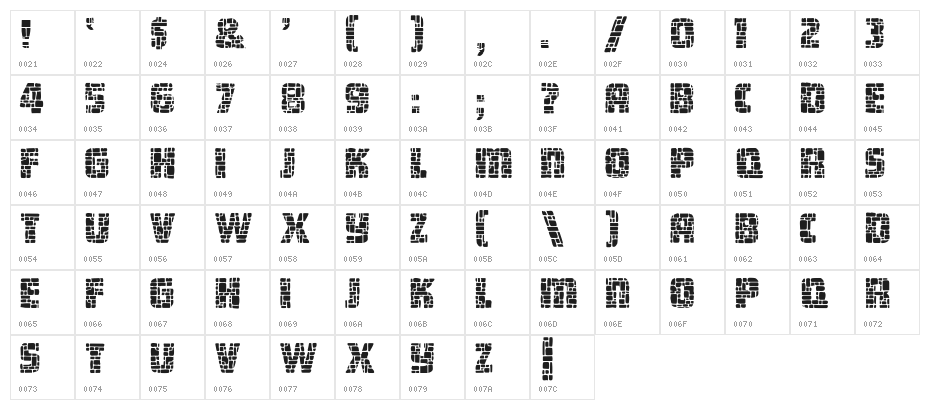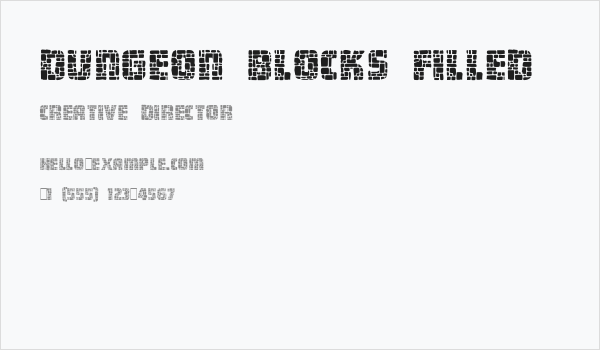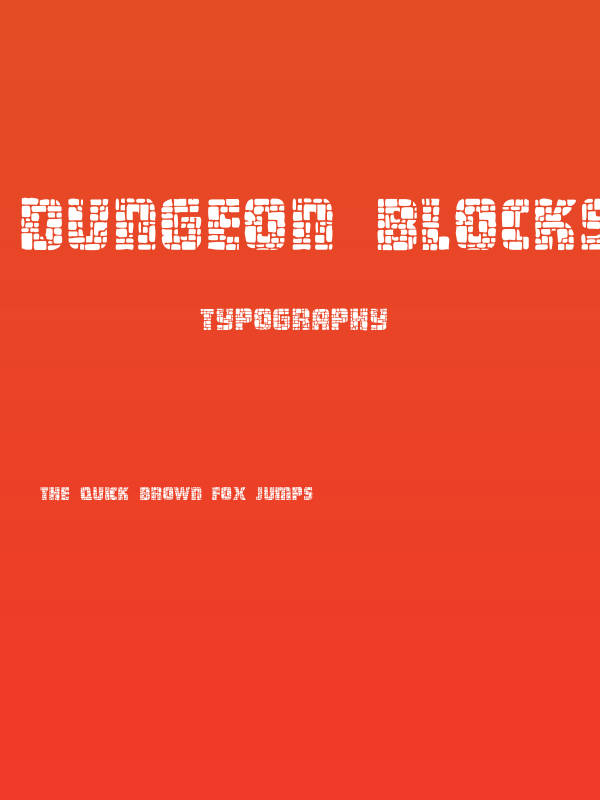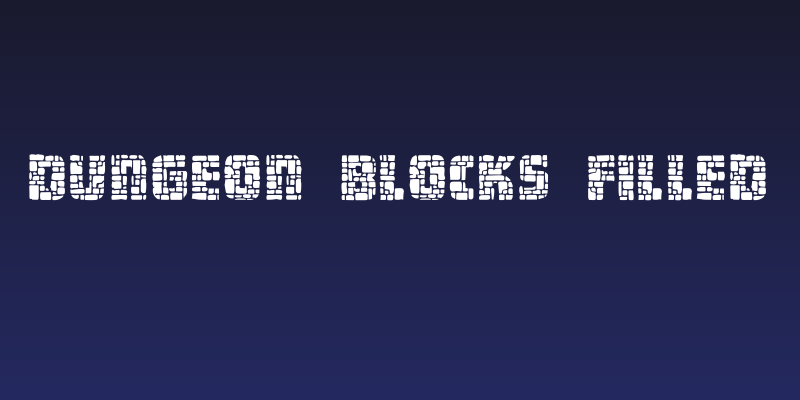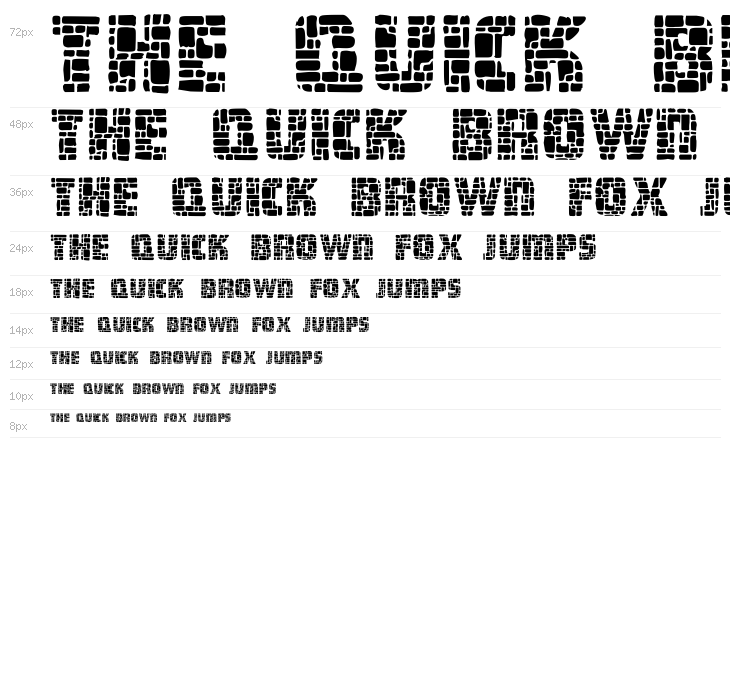
Dungeon Blocks Filled Font
Dungeon Blocks Filled Description
This font features a bold, blocky design with a filled pattern that resembles dungeon-like bricks or stones. Each character is constructed with a series of rectangular and square shapes, giving it a rugged, textured appearance. The uppercase and lowercase letters maintain a consistent style, with the same filled block pattern applied uniformly across all characters. The numbers and special characters also follow this distinctive design, ensuring a cohesive look throughout. The font's unique style makes it stand out, ideal for projects that require a strong, impactful visual presence.
| Proposed Projects | Ideal for game titles, posters, themed events, escape room branding, or any project needing a strong, adventurous aesthetic. |